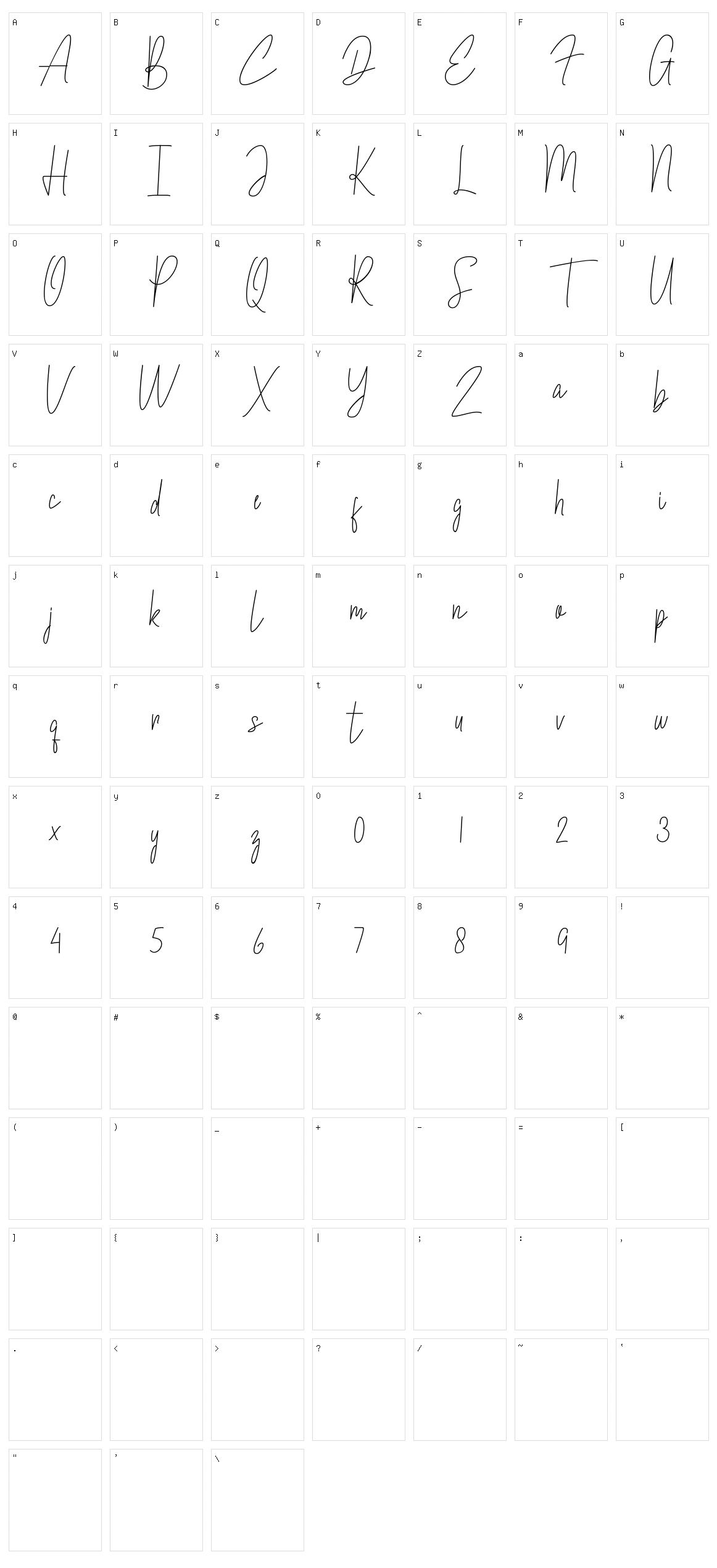
The free font Biellsa is carefully designed by Claudia, showcasing a thoughtful balance of creativity and usability and falls under the Script font style. When you download the ZIP file, it contains only 530.81 KB of font files, making it lightweight and quick to download. Please review the license details below to understand permitted usage and distribution rights. If license information is not available, we recommend using this font for personal projects only or contacting the author directly for commercial usage permissions.